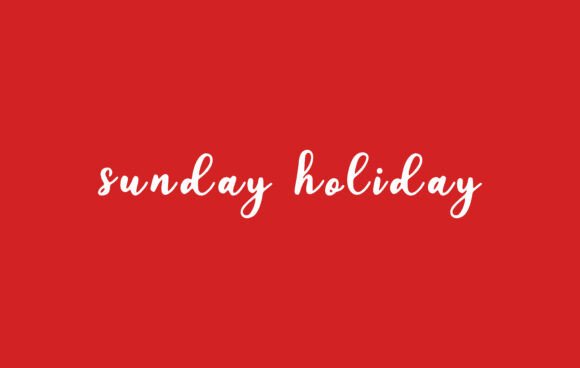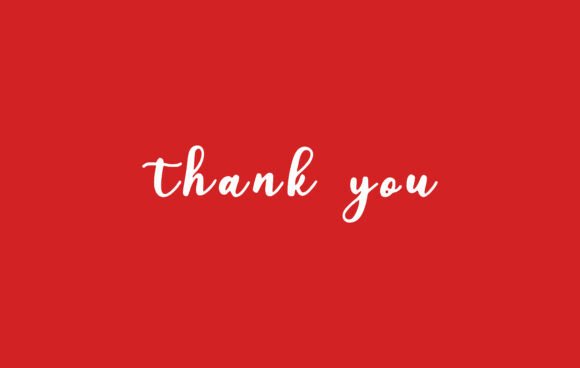
Introducing the Elegance of Graceful Echo Font
In the realm of typography, few fonts manage to capture the essence of romance and elegance as effortlessly as the Graceful Echo font. This authentic handwritten font is not just a typeface; it’s an expression of sophistication and charm, designed to elevate your creative projects to new heights. Whether you’re a designer looking for the perfect addition to your toolkit or a crafter seeking that special something for your next project, Graceful Echo is poised to become your go-to choice.
The Romantic Touch of Authentic Handwriting
Graceful Echo font is meticulously crafted to bring the warmth and intimacy of handwritten text to your digital and print projects. Its authentic, hand-crafted feel lends a personal touch to any design, making it instantly more relatable and engaging. The romantic undertones of this font are subtle yet unmistakable, adding a layer of emotional depth to your work that resonates with viewers.
Designed for Versatility and Readability
One of the standout features of Graceful Echo is its exceptional legibility. This font isn’t just beautiful; it’s also highly functional, making it suitable for use as both title text and body text. Its clear and flowing lines ensure that your message is conveyed with clarity, whether you’re working on magazine headlines, social media graphics, or detailed product descriptions.
A World of Creative Possibilities
The versatility of Graceful Echo font is one of its most compelling attributes. Its wide range of applications makes it an invaluable asset for designers and crafters across various disciplines. Here are just a few examples of how you can use Graceful Echo to bring your creative ideas to life:
- Magazine Headlines: Add a touch of elegance and sophistication to your magazine’s cover pages and feature articles.
- Social Media: Elevate your social media presence with eye-catching posts and stories that reflect your brand’s personality.
- Branding: Use Graceful Echo to create a consistent and memorable brand identity that sets you apart from the competition.
- Wedding Invitations: Bring romance and whimsy to your wedding invitations and stationery.
- Cards: Whether it’s a birthday, anniversary, or holiday card, Graceful Echo adds a personal and heartfelt touch.
Why Choose Graceful Echo Font?
In a sea of digital fonts, Graceful Echo stands out for several reasons:
- Uniqueness: Its authentic handwritten style ensures your projects won’t look generic or overused.
- Emotional Connection: The romantic and elegant vibe helps create an emotional connection with your audience.
- Versatility: From digital platforms to print materials, Graceful Echo adapts seamlessly across different mediums.
- Legibility: Its readability makes it perfect for both short and long-form content.
Graceful Echo font is more than just a typeface; it’s a tool for creative expression. Its blend of authenticity, elegance, and readability makes it an essential asset for designers and crafters looking to infuse their projects with a personal and romantic touch. Whether you’re aiming to make a statement or simply add a bit of charm to your work, Graceful Echo is the perfect choice. Embrace the elegance and let your creative ideas flourish with this beautiful handwritten font.